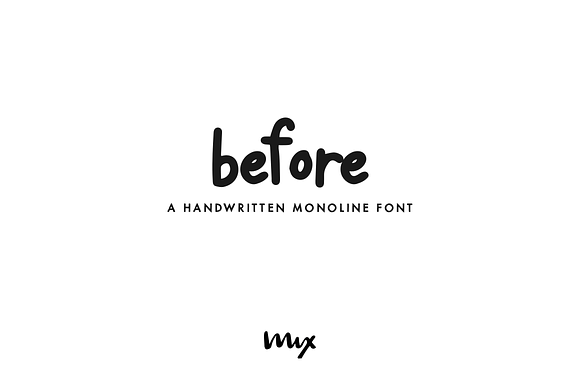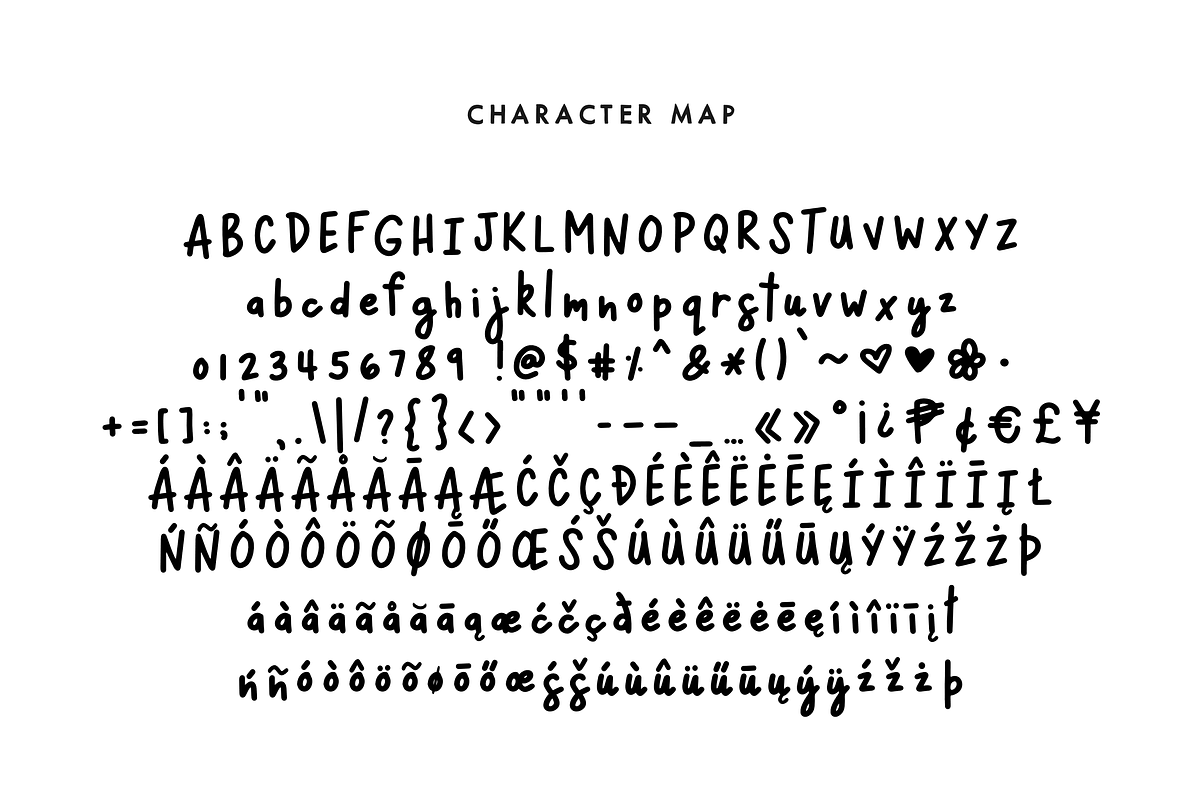
Before — A Handwritten Monoline Font
Mix Before is a handwritten monoline font. It's clean and simple, but still has all the charm of a handwritten font. It's perfect for DIY themed projects and designs.
The glyphs were all handwritten using the procreate brush Monoline (which can be found here: ) on an iPad Pro with an Apple Pencil. It was then converted into a font.
Includes the following characters:
0123456789 !@$#%^&()`~♥❤✿•
+=[]:;'",.|/?{}“”‘’-–—…«»°¡¿₱¢€£¥
ÁÀÂÄÃÅĂĀĄÆĆČÇÐÉÈÊËĖĒĘÍÌÎÏĪĮŁŃÑÓÒÔÖÕØŌŐŒŚŠÚÙÛÜŰŪŲÝŸŹŽŻÞ
áàâäãåăāąæćčçðéèêëėēęíìîïīįłńñóòôöõøōőœśšúùûüűūųýÿźžżþ